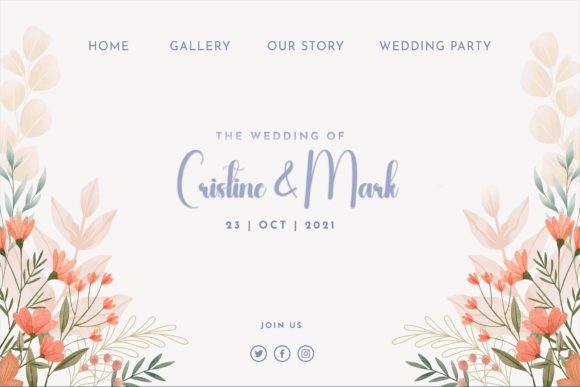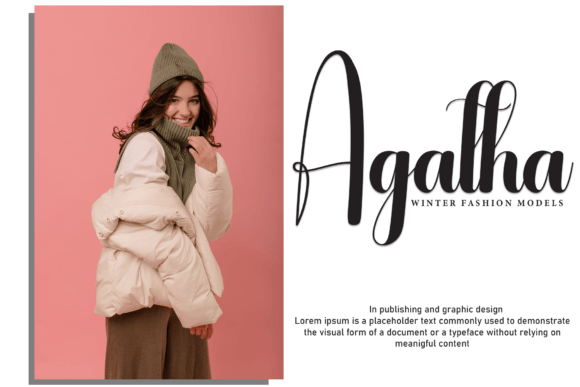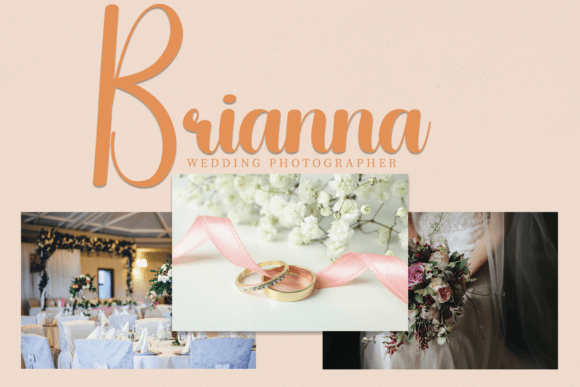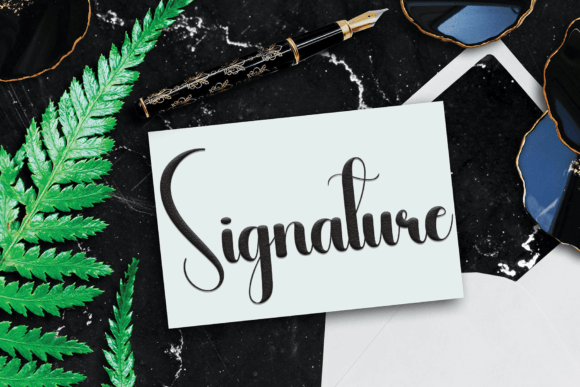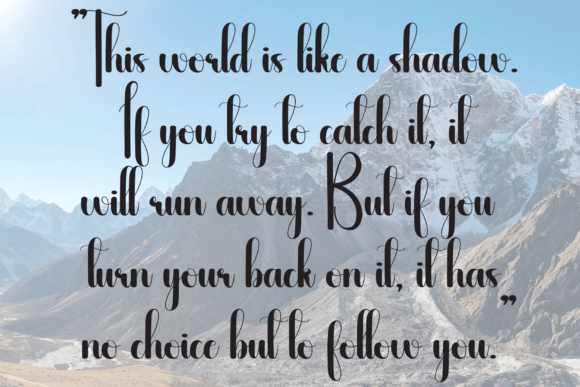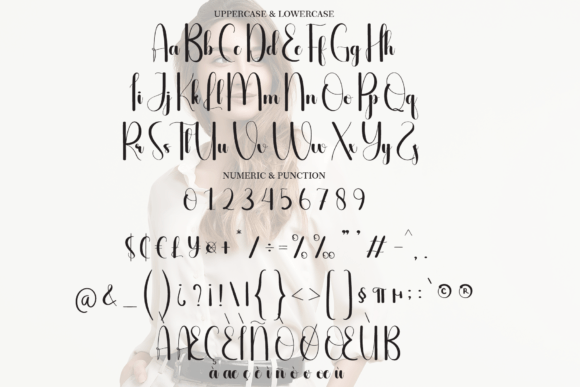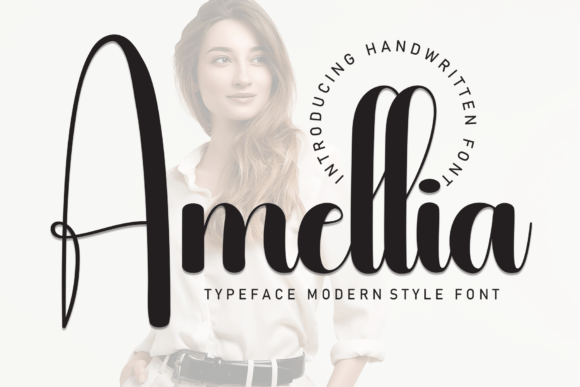
The Sweet and Friendly Amellia Font: A Designer’s Delight
I’ll never forget the time I was working on a wedding invitation project, and I just couldn’t find the right font to capture the playful yet elegant vibe my client was looking for. I scrolled through page after page of Google search results, but nothing seemed quite right. That was until I stumbled upon the Amellia font. With its sweet and friendly handwritten style, it was love at first sight! 💕
Amellia is a cute and fun font that’s ideal for writing wedding invitations, cards, or any other design that might need a fun touch. In this article, I’ll share my honest review of the Amellia font, provide a practical guide on how to use it, and explore similar fonts you might enjoy.
The Good ✨
• 💖 Sweet and friendly handwritten style that’s perfect for creative projects
• ✅ Easy to read and understand, even at smaller font sizes
• 🎉 Fun and playful vibe that’s sure to bring a smile to your readers’ faces
• 💼 Highly versatile and can be used for a wide range of design projects
The Not-So-Good 🤔
• ⚠️ Limited character set, which can make it difficult to create complex designs
• 🤔 Some users may find the font a bit too playful or childish for certain projects
The Story Behind Amellia Font
The Amellia font was designed by a talented type designer who wanted to create a font that was both sweet and friendly. Inspired by the beauty of handwritten letters, the designer crafted a font that’s perfect for creative projects. With its playful and fun vibe, Amellia has become a popular choice among designers and crafters.
Q: What is the Amellia font best used for?
A: The Amellia font is best used for creative projects that need a playful and fun touch, such as wedding invitations, cards, and social media graphics.
Q: Is the Amellia font easy to read?
A: Yes, the Amellia font is easy to read and understand, even at smaller font sizes.
Q: Is the Amellia font available in different styles?
A: The Amellia font may have some stylistic alternates and glyphs available, but it’s best to check the font’s documentation for specific details.